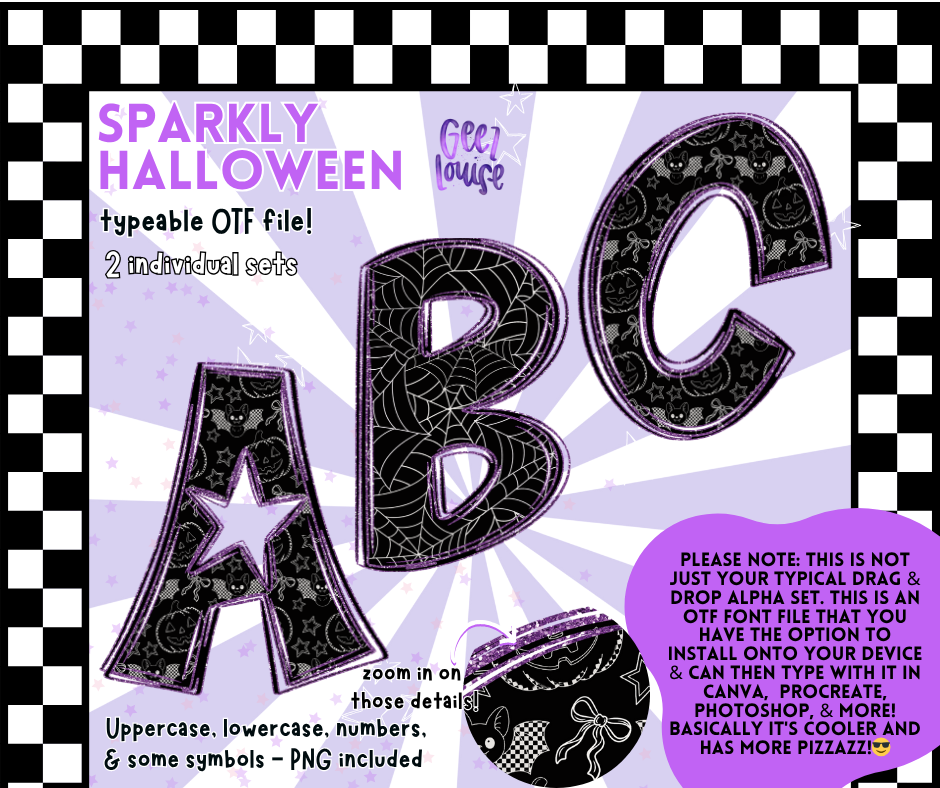
Sparkly Halloween – Typeable OTF Font with PNGs (2 Sets Included)
Glam meets ghoulish in the Sparkly Halloween font set!
This spooky-but-make-it-sparkly alpha bundle comes with two fabulously fun OTF font styles—loaded with webs, stars, bats, pumpkins, and the perfect amount of pizzazz.
✨ 2 unique font sets
🕷️ Webs, bows, pumpkins & sparkle galore
This isn’t your basic alpha set—it’s sassy, spooky, and sparkle-packed!